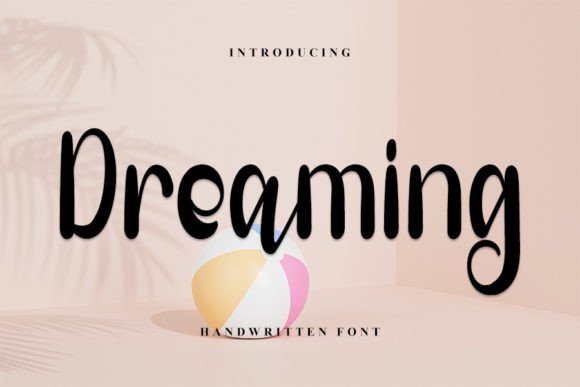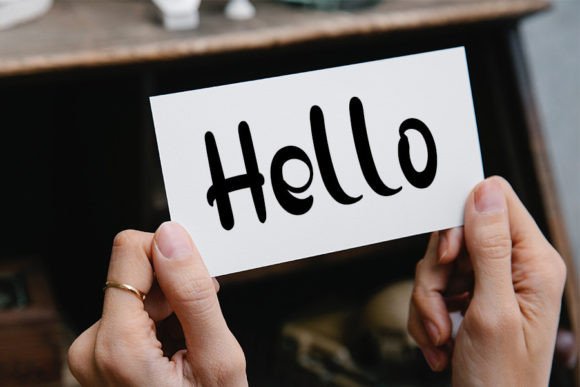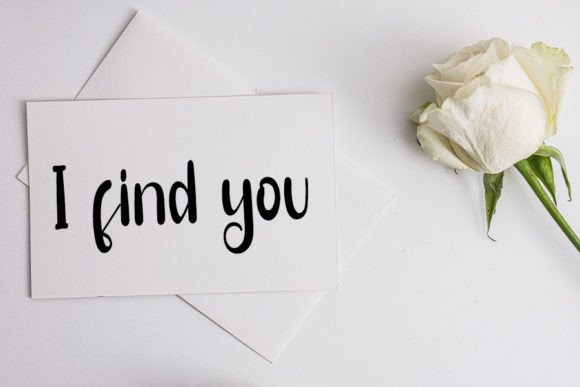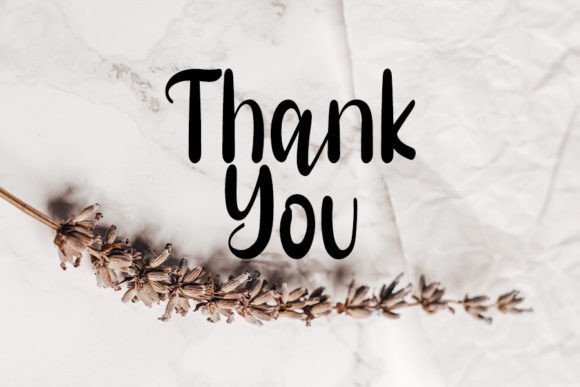
Dreaming Font
Bring a sense of charm and sophistication to your designs with the Dreaming Font download, a stylish handwritten typeface that blends the beauty of classic calligraphy with a modern edge. Perfectly balanced and gracefully crafted, Dreaming adds a touch of elegance to any creative project while remaining versatile and easy to use.
This beautifully flowing font is inspired by timeless script styles and designed with a contemporary atmosphere in mind. Whether you’re working on branding, invitations, digital art, or editorial content, Dreaming Font offers the flexibility and finesse to elevate your work.
Designed for Elegance and Versatility
What makes Dreaming Font download truly special is its balance—neither too delicate nor overly bold. The subtle variations in stroke weight create a natural rhythm that mimics hand-drawn lettering. This handwritten style gives your text personality, warmth, and a handcrafted feel that stands out in both digital and print formats.
This typeface is perfect for:
• Wedding Invitations
• Branding & Logos
• Luxury Packaging
• Social Media Graphics
• Thank You Cards
• Business Cards
• Editorial Headlines
• Digital Scrapbooking
• Printables & Stationery
Its refined strokes and polished form make it ideal for projects that require a romantic or upscale aesthetic.
Add Elegance to Every Project
This font was designed to provide a smooth and visually appealing flow that brings sophistication to your designs. The modern yet timeless style makes it ideal for both personal and commercial projects. Whether you’re building a premium brand or designing a heartfelt invitation, Dreaming Font adds an elegant script taste that makes your message unforgettable.
Because of its legibility and aesthetic appeal, it’s also a popular choice for:
• Quotes & Social Media Posts
• Beauty Industry Brands
• Fashion Blogs
• Boutique Websites
• Magazine Spreads